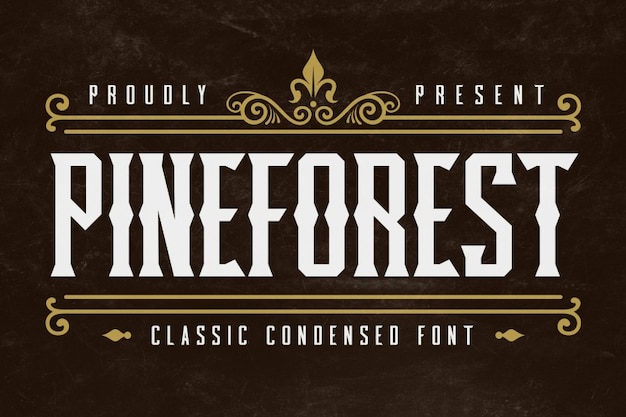
Pineforest
Pineforest Font
AlmarkhaType
Pineforest is a classic font created for you to boost your creations with a new style. Add it to your templates, backgrounds or flyers and take your projects to the next level. Download it today!